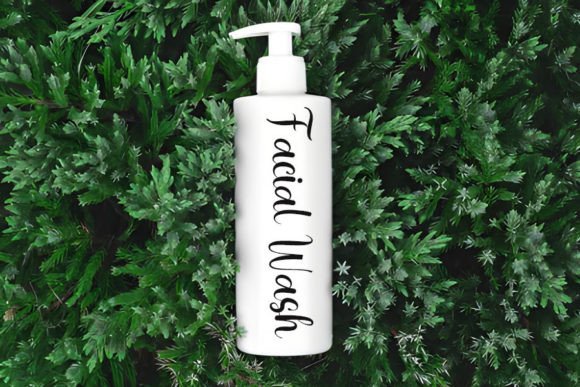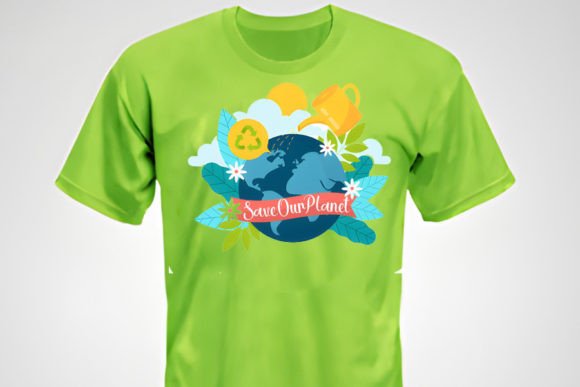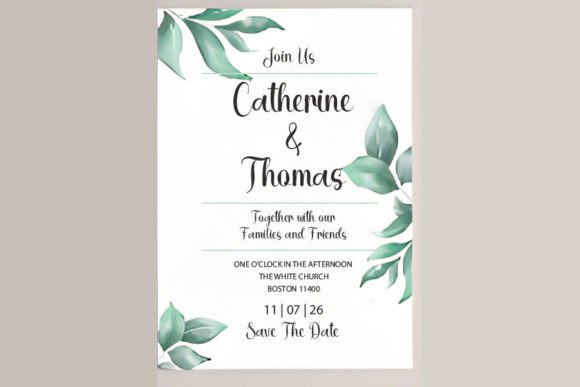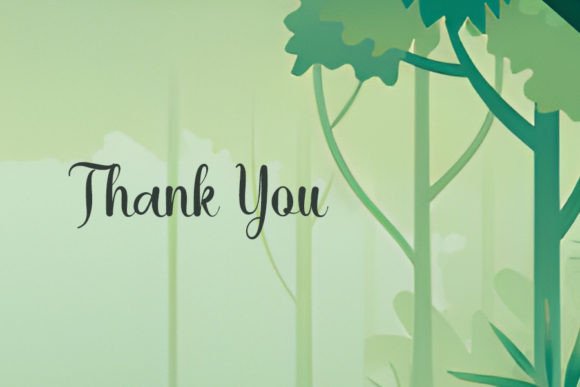
Introducing Alligator Font: The Perfect Choice for Your Creative Projects
Are you a designer or crafter looking for a unique and elegant font to elevate your projects? Look no further than Alligator Font! This delicate, elegant, and flowing handwritten font is perfect for adding a touch of sophistication and style to your designs. With its incredibly distinct and timeless style, Alligator Font is sure to fall in love with your favorite projects and help you create spectacular designs.
What Makes Alligator Font So Special?
Alligator Font is a one-of-a-kind handwritten font that boasts a range of characteristics that set it apart from other fonts. Its delicate and elegant style makes it perfect for use in a variety of projects, from wedding invitations and branding materials to packaging and advertising. The font’s flowing lines and curves create a sense of movement and fluidity, adding a touch of whimsy and playfulness to your designs.
Key Features of Alligator Font
- Delicate and Elegant Style: Alligator Font features a delicate and elegant style that is perfect for adding a touch of sophistication to your designs.
- Flowing Handwritten Lines: The font’s flowing handwritten lines create a sense of movement and fluidity, adding a touch of whimsy and playfulness to your designs.
- Incredibly Distinct and Timeless Style: Alligator Font has an incredibly distinct and timeless style that will make your designs stand out from the crowd.
- Perfect for a Variety of Projects: The font is perfect for use in a variety of projects, from wedding invitations and branding materials to packaging and advertising.
Why Designers and Crafters Love Alligator Font
Designers and crafters love Alligator Font for a variety of reasons. Its unique and elegant style makes it perfect for adding a touch of sophistication and style to their designs. The font’s versatility also makes it a great choice for a wide range of projects, from digital designs to print materials. Additionally, the font’s flowing lines and curves create a sense of movement and fluidity, adding a touch of whimsy and playfulness to designs.
- Wedding Invitations: Add a touch of elegance and sophistication to your wedding invitations with Alligator Font.
- Branding Materials: Use Alligator Font to create unique and eye-catching branding materials, including logos and business cards.
- Packaging: Add a touch of whimsy and playfulness to your packaging with Alligator Font.
- Advertising: Use Alligator Font to create eye-catching and effective advertising materials, including billboards and social media ads.
In conclusion, Alligator Font is a unique and elegant handwritten font that is perfect for adding a touch of sophistication and style to your designs. With its delicate and elegant style, flowing handwritten lines, and incredibly distinct and timeless style, Alligator Font is sure to fall in love with your favorite projects and help you create spectacular designs. Whether you’re a designer or crafter, Alligator Font is a great choice for a wide range of projects, from wedding invitations and branding materials to packaging and advertising.